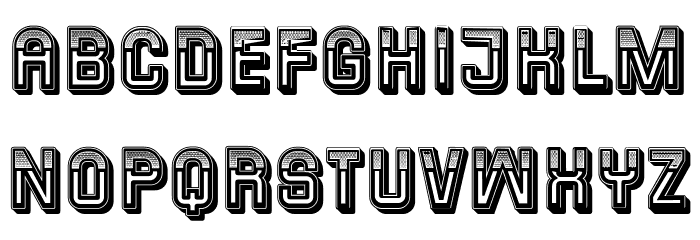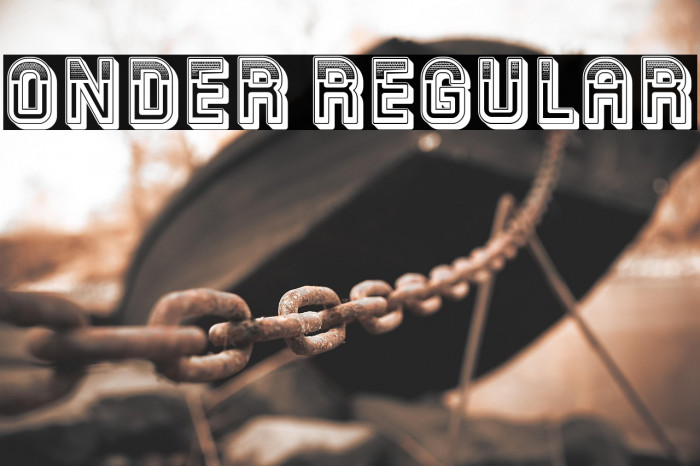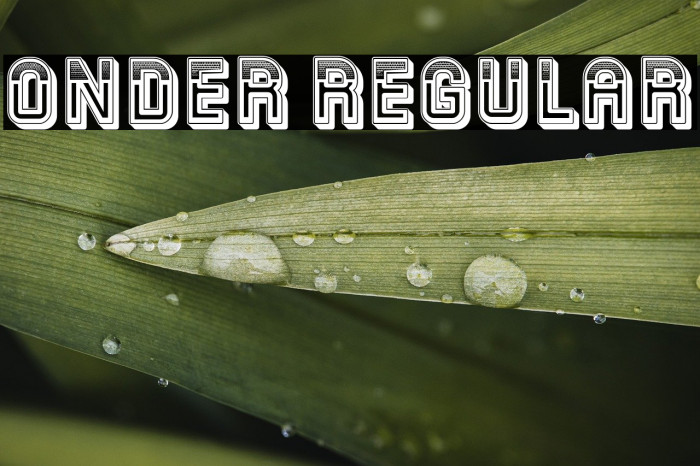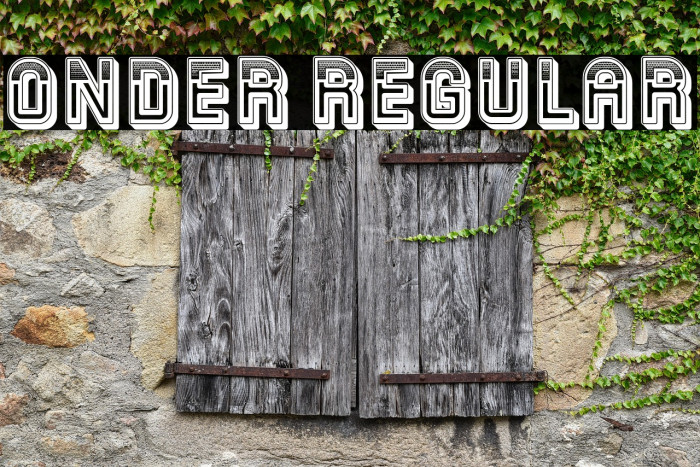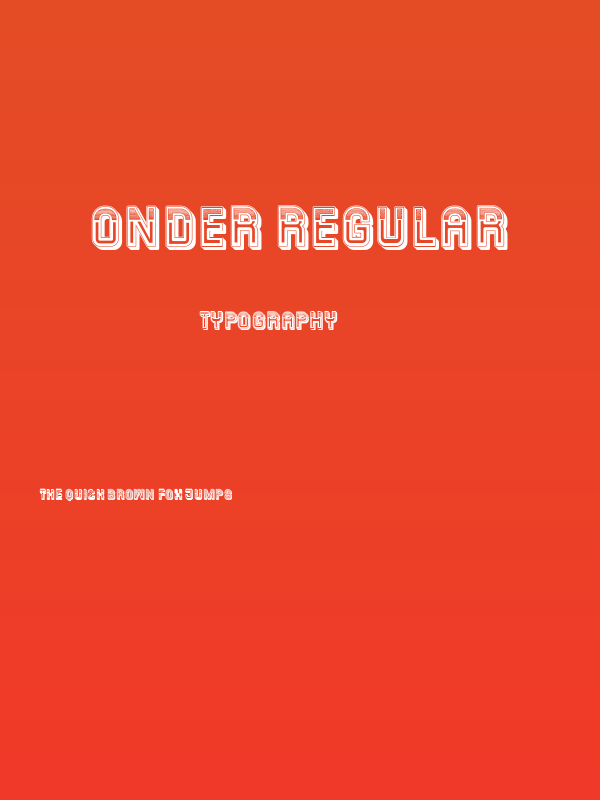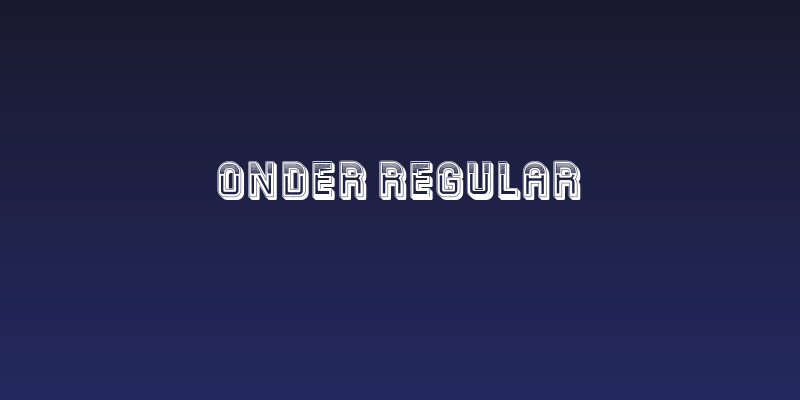
Onder Regular Font
Onder Regular Description
This font features a bold, three-dimensional design with a striking outline and shadow effect. The letters are uppercase only, with a geometric and structured appearance. The interior of each character is filled with a dotted pattern, adding texture and depth. The overall look is dynamic and eye-catching, making it suitable for attention-grabbing headlines or titles. The font's style is reminiscent of retro or vintage signage, with a modern twist due to its clean lines and precise angles.
| Overall Style | Retro, Modern |
| Proposed Projects | Ideal for poster designs, branding projects, retro-themed events, and eye-catching headlines. |